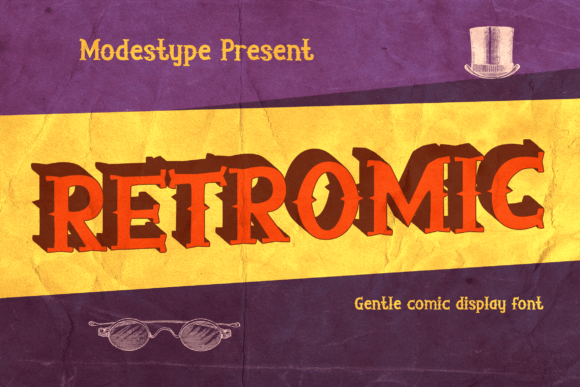
Retromic: A Retro Font for Modern Creators
Retromic is more than just a font—it's a bridge between the past and the present. With its crisp, serif style, it captures the essence of vintage design while offering modern versatility. Whether you're designing a poster, creating content for social media, or working on a creative project, Retromic brings a nostalgic touch that resonates with both old and new audiences.
This font is ideal for anyone looking to infuse their work with a retro vibe. From indie game developers to educators, from small business owners to hobbyists, Retromic offers something valuable for different needs and goals. Its clean lines and timeless appeal make it a go-to choice for those who want to stand out in a crowded digital space.
What makes Retromic unique is its ability to blend nostalgia with functionality. It’s not just about looking old—it’s about feeling authentic. The font’s design evokes memories of classic comic books, vintage posters, and retro video games, making it a powerful tool for storytelling and visual communication.
Why Retromic Matters to Different Audiences
For beginners, Retromic can be a great starting point for learning about typography and design. Its clear structure makes it easy to understand how fonts contribute to the overall look and feel of a project. Beginners in graphic design, content creation, or even students exploring visual arts may find it helpful to experiment with this font to see how it influences mood and message.
Experienced designers and creators might appreciate Retromic for its flexibility and adaptability. It works well in a variety of formats—whether used in print, digital media, or online platforms. For professionals in the marketing or publishing industries, this font can help create a consistent brand identity that feels both familiar and fresh.
Entrepreneurs and small business owners often look for ways to differentiate their brand. Retromic offers a unique visual identity that can set a business apart. Whether it's for a logo, website, or social media content, using this font can help convey a sense of authenticity and creativity that appeals to a wide range of customers.
Educators and students may also benefit from Retromic. In classrooms or educational materials, it can be used to create engaging visuals that capture attention and enhance learning. For example, history teachers could use it in presentations about the 1980s or 1990s, while art teachers might incorporate it into lessons on typography and design history.
Hobbyists and DIY enthusiasts often seek out fonts that allow them to express their personal style. Retromic provides an accessible way to add a retro flair to handmade projects, such as custom t-shirts, greeting cards, or scrapbooks. Its versatility means it can be used in both digital and physical formats, making it a favorite among crafters and artists.
Practical Uses for Retromic
One of the most popular uses for Retromic is in the world of online gaming. Game developers and modders often look for fonts that match the aesthetic of their projects. Retromic’s retro style fits perfectly with pixel art, 8-bit graphics, and other nostalgic elements commonly found in indie games. It can be used for in-game text, titles, or promotional materials to create a cohesive and immersive experience.
For content creators, especially YouTubers and social media influencers, Retromic can help make thumbnails and covers stand out. In a competitive online space, having a visually distinct design can make a big difference. Using this font in thumbnails or profile pictures can help build a recognizable brand that appeals to fans of retro aesthetics.
Event planners and organizers might also find Retromic useful for vintage-themed events. Whether it's a retro party, a cosplay convention, or a film festival, this font can be used in invitations, signage, and promotional materials to reinforce the event's theme. Its clean and readable design ensures that information is easy to digest while maintaining a nostalgic feel.
Writers and publishers working on retro-inspired books or magazines may also choose Retromic for its readability and style. It works well in both headings and body text, making it suitable for novels, zines, or fan publications. The font’s elegance adds a touch of sophistication without being too formal, which is perfect for casual or niche publications.
Choosing Retromic for Your Projects
When considering whether Retromic is right for your project, think about the tone and message you want to convey. If your goal is to evoke nostalgia, create a vintage atmosphere, or connect with a specific audience, this font could be a strong fit. However, if your project requires a more modern or minimalist look, you might want to explore other options.